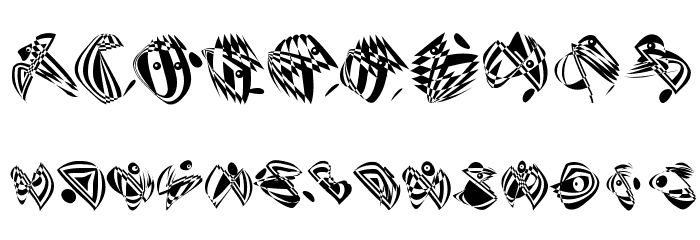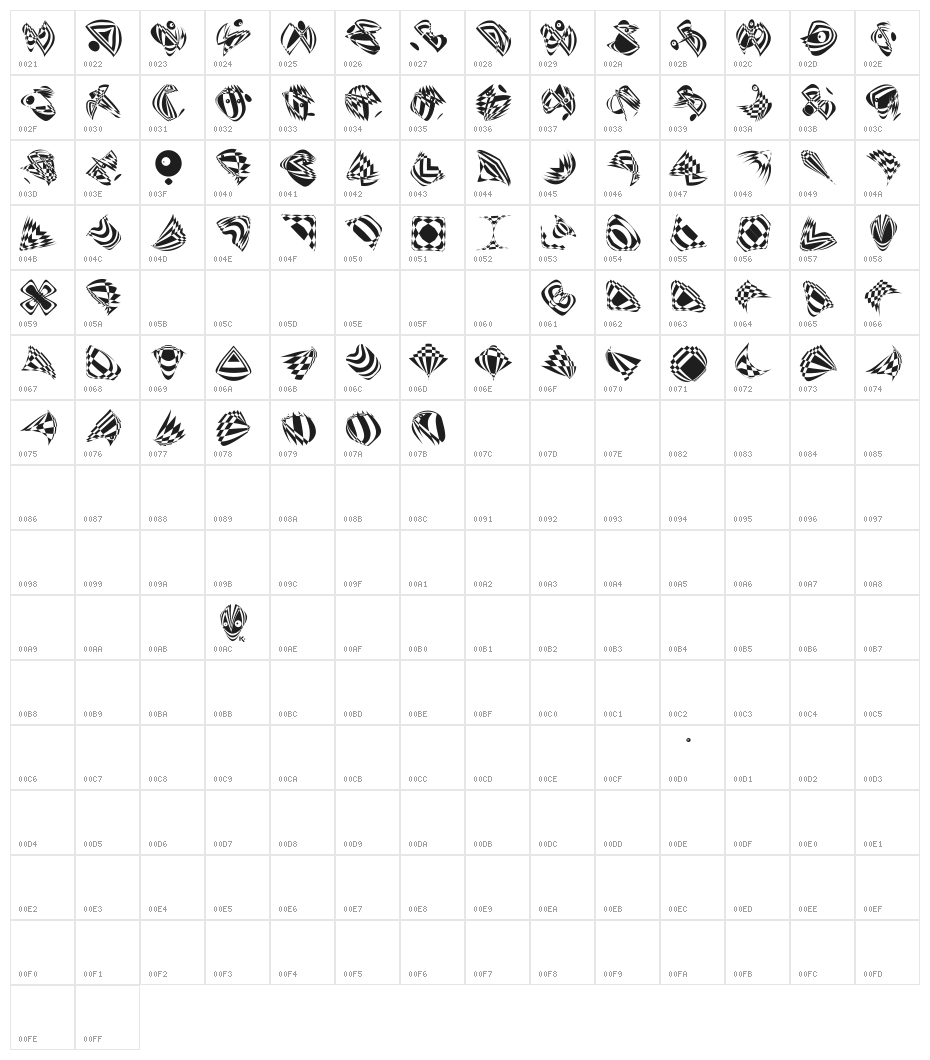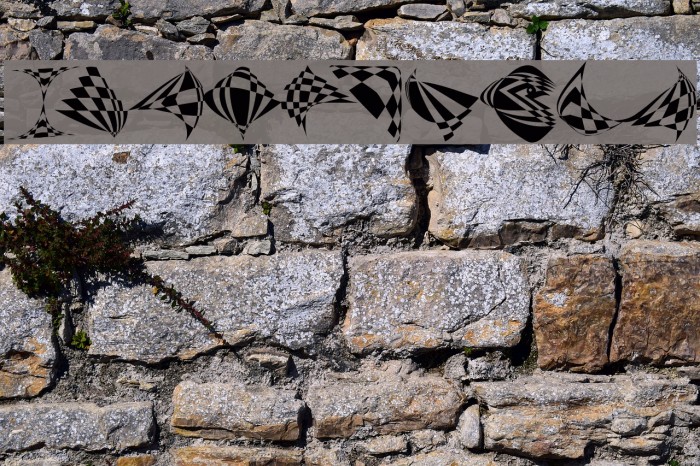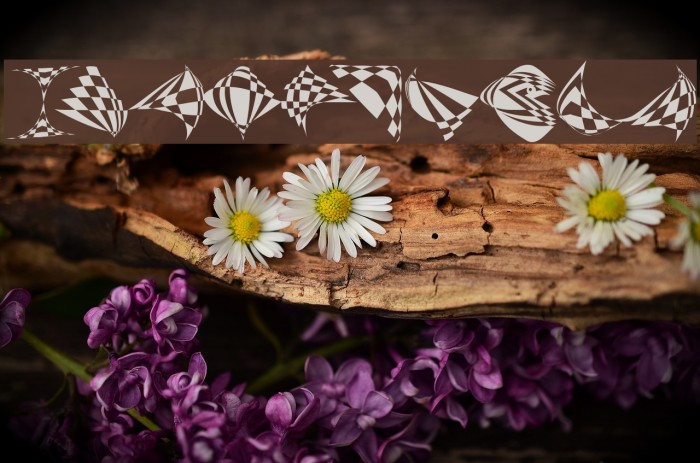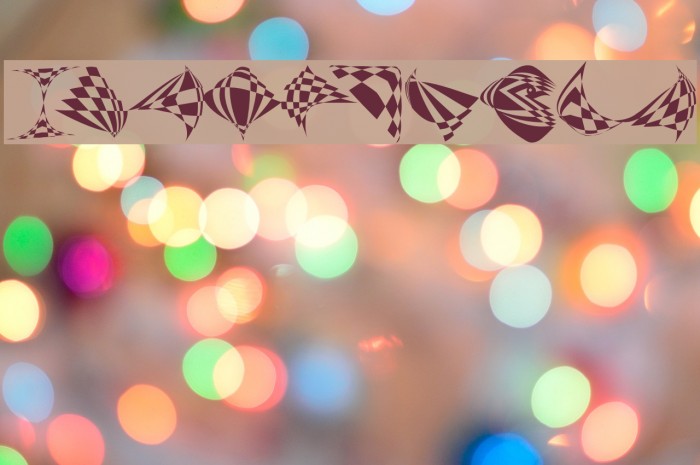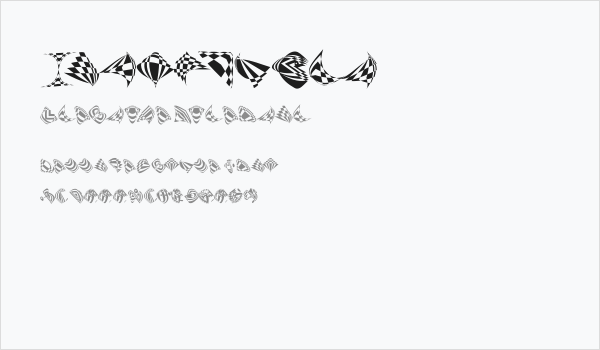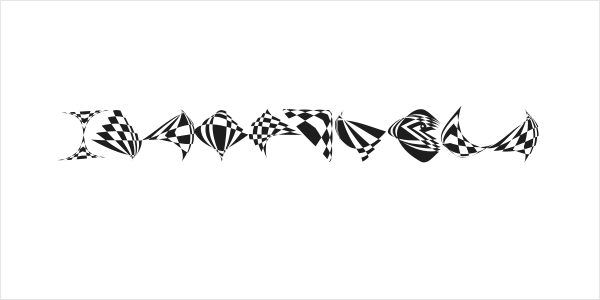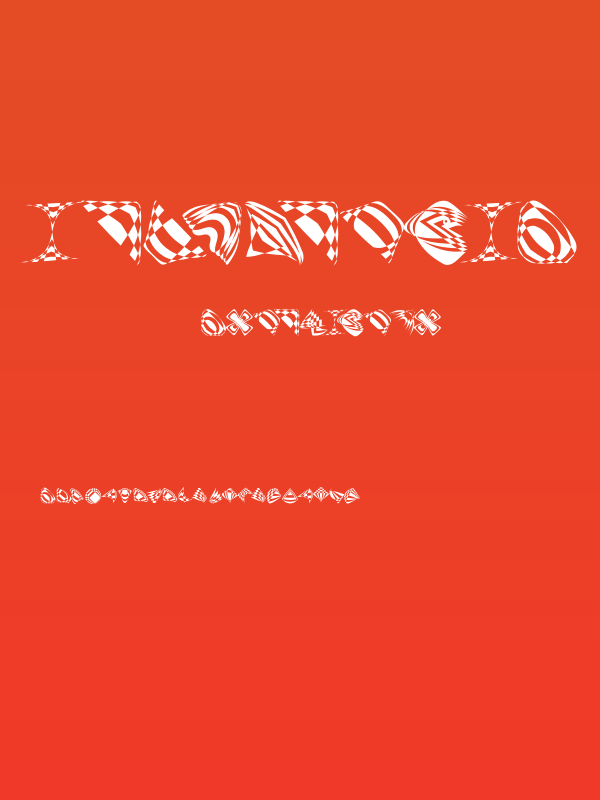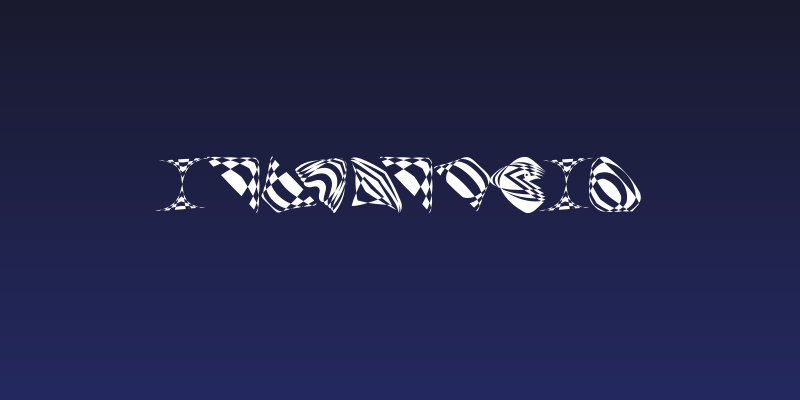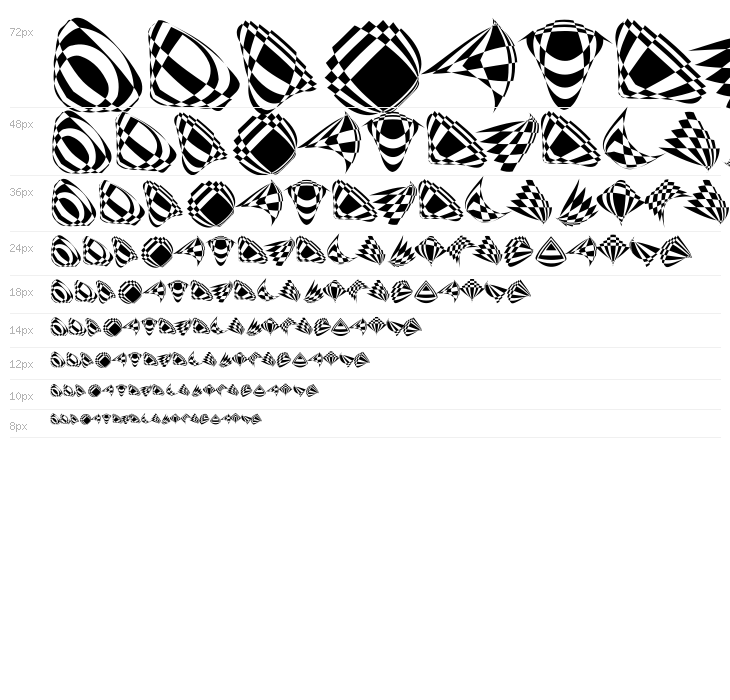
RoundOpArt Font
RoundOpArt Description
This font is a striking display typeface that features bold, geometric shapes with a strong optical illusion effect. Each character is crafted with intricate patterns that create a sense of movement and depth, reminiscent of op art. The letters are highly stylized, with a mix of sharp angles and smooth curves, making them visually captivating. The black and white contrast enhances the optical illusion, creating a dynamic and energetic appearance. This font is not designed for readability in body text but rather for impactful visual statements.
| Proposed Projects | Ideal for posters, album covers, and branding projects that require a bold, artistic touch. |